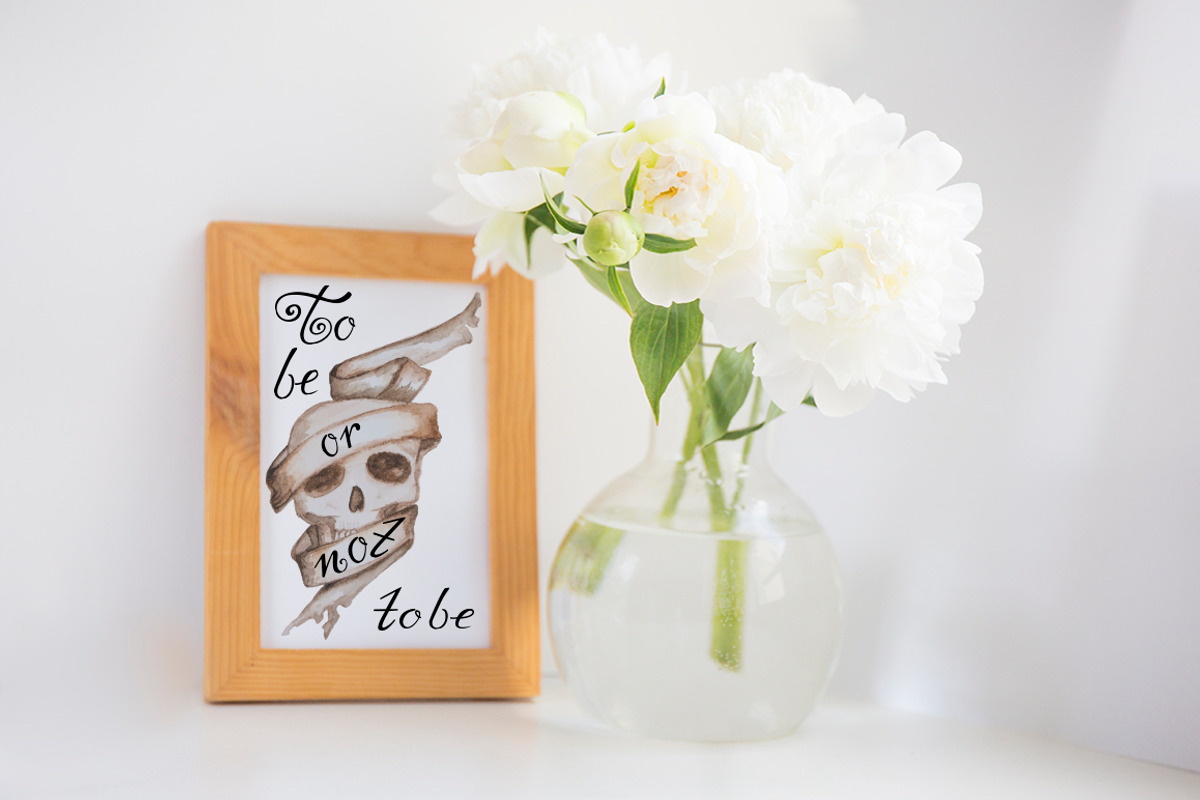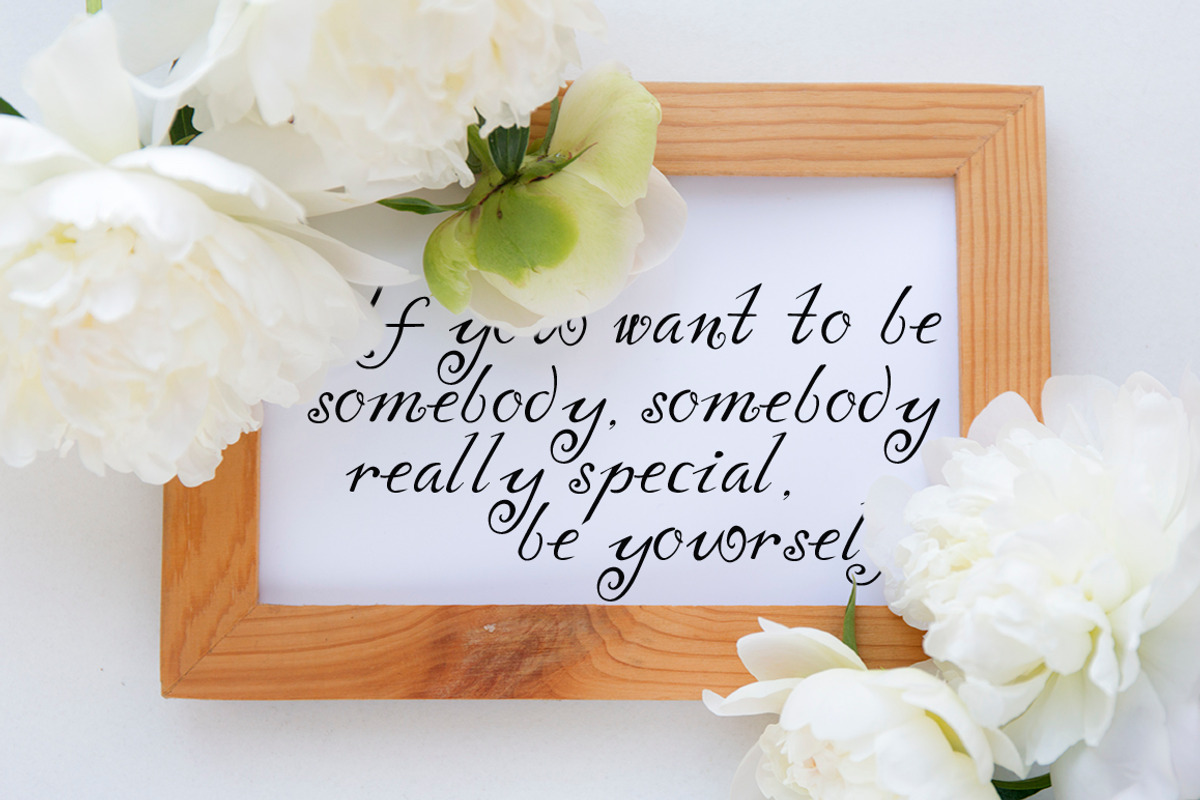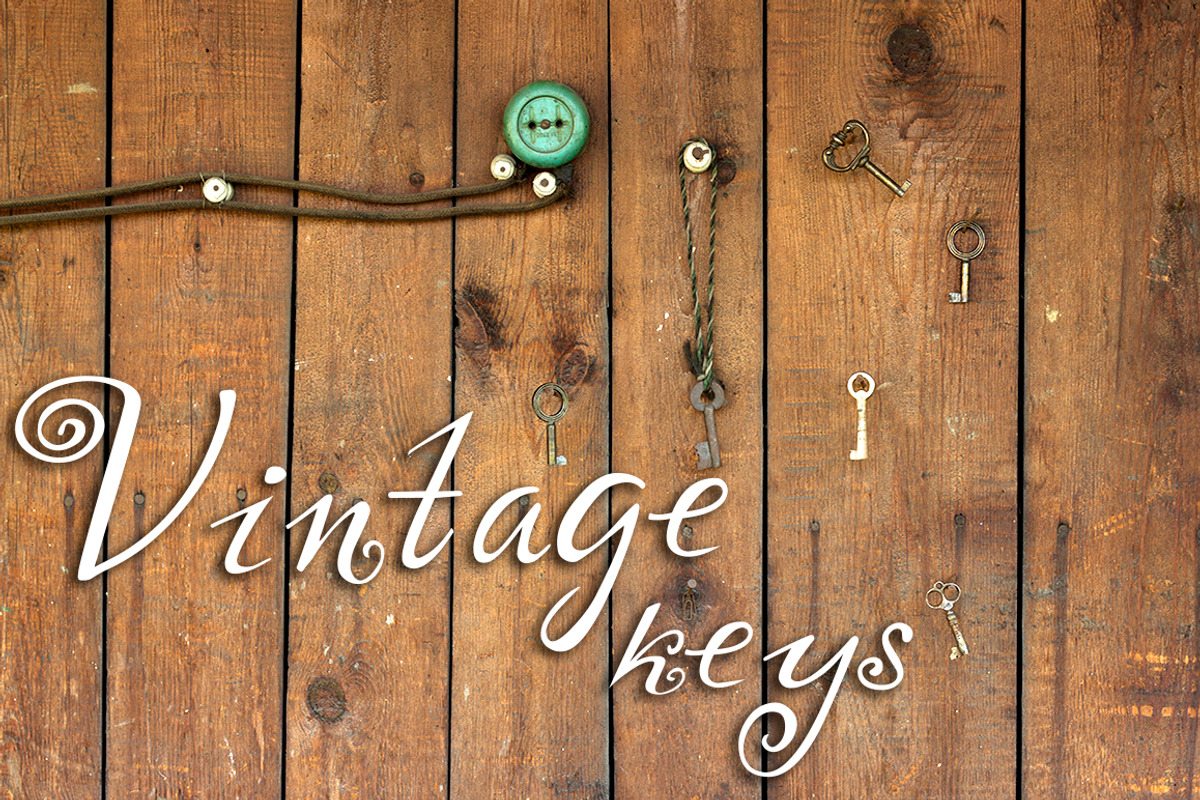
Yndina elegant font
Yndina elegant font by Ana Babii is a font selected for branding, posters, packaging, typography.
Why Yndina elegant font is worth a look
Yndina elegant font by Ana Babii fits naturally into Branding, posters, packaging, typography.